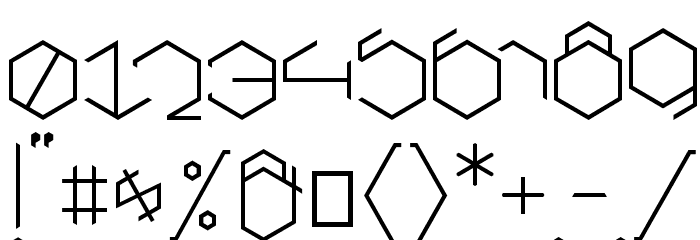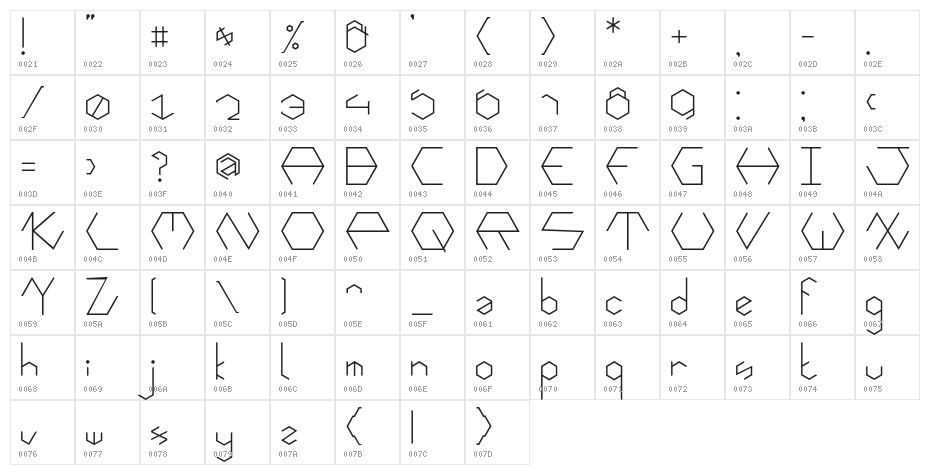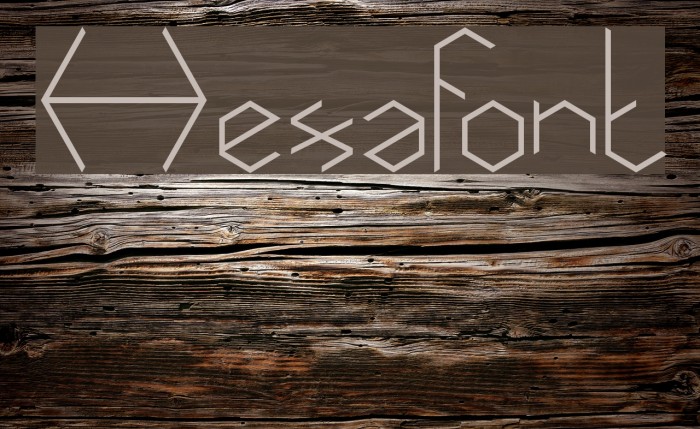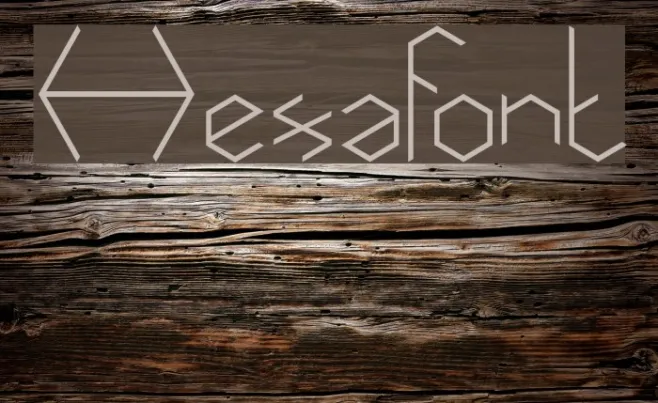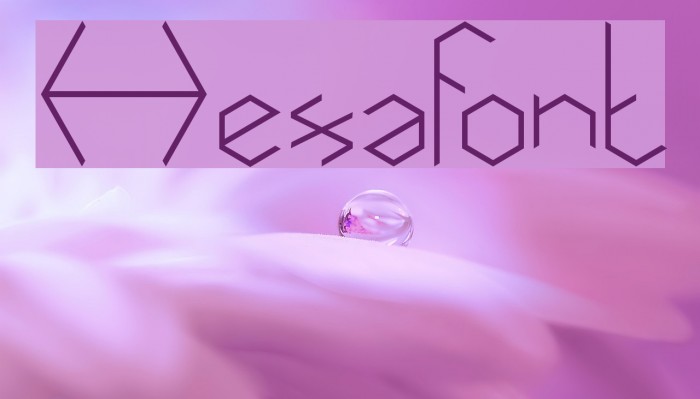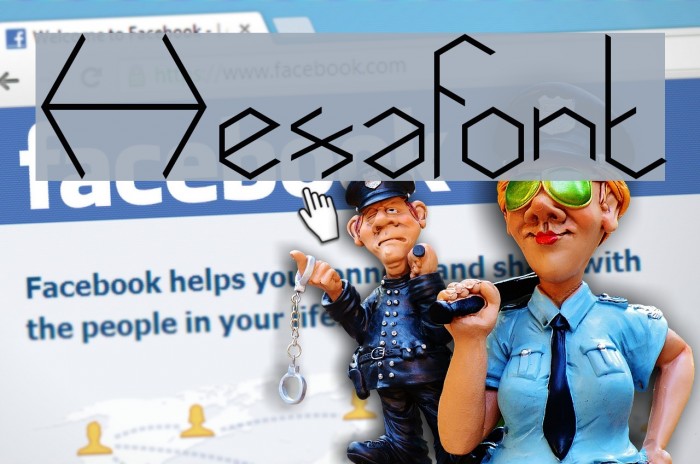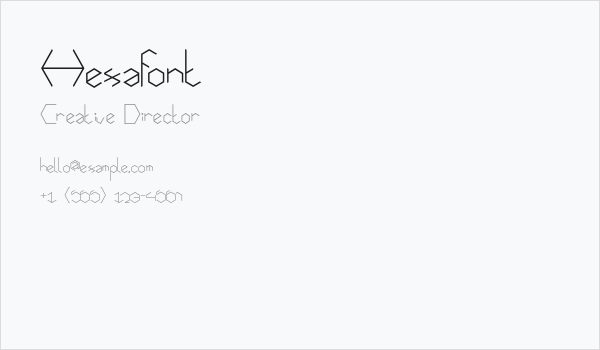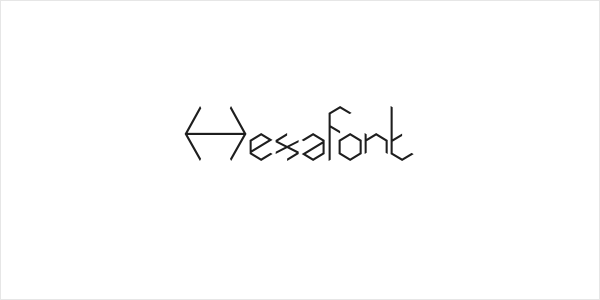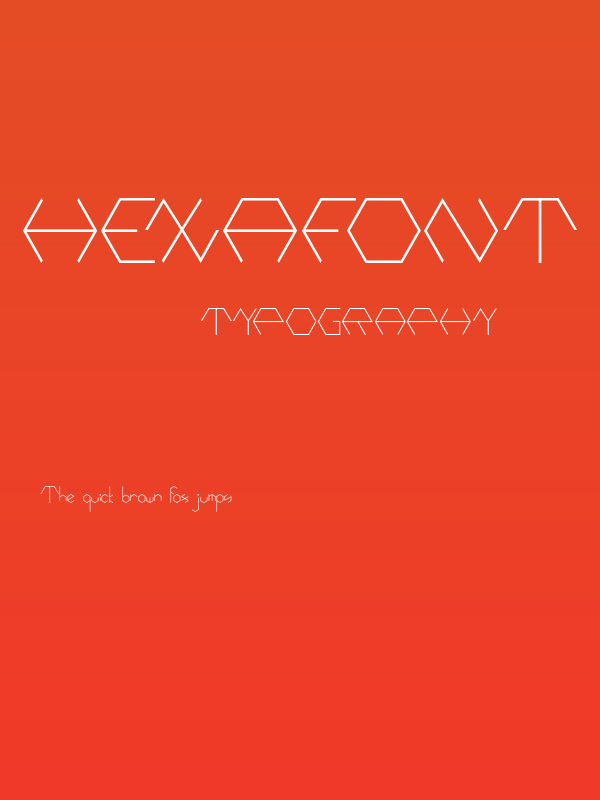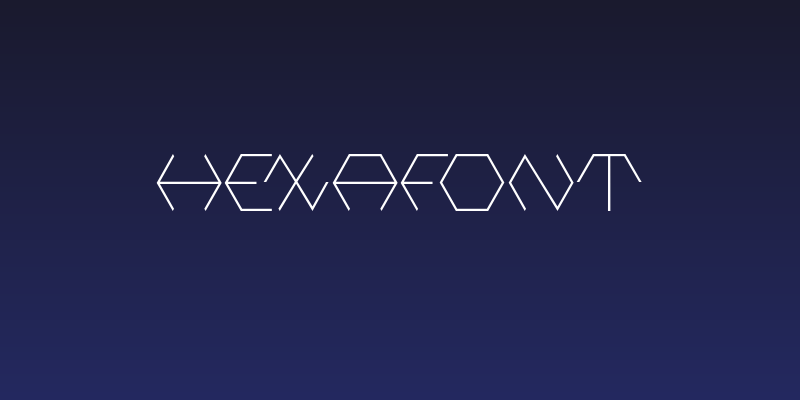
Hexafont Font
Hexafont Description
This font features a unique geometric design, characterized by hexagonal shapes that form the basis of each character. The uppercase letters are constructed with sharp angles and straight lines, creating a futuristic and technical appearance. The lowercase letters maintain the hexagonal theme, offering a cohesive look across the typeface. Numbers and special characters follow the same design principles, ensuring uniformity. The font's distinct style makes it stand out, ideal for projects that require a modern and edgy aesthetic.
| Proposed Projects | Ideal for technology branding, sci-fi themed designs, video game interfaces, and modern posters. |